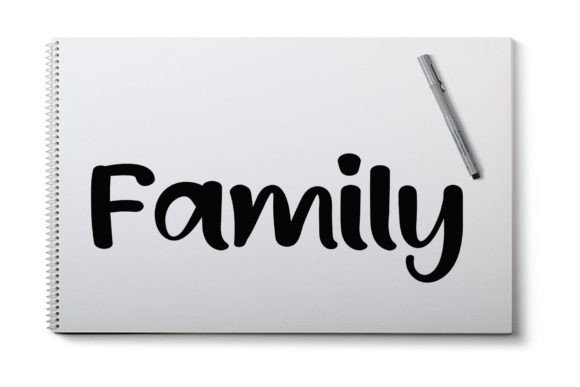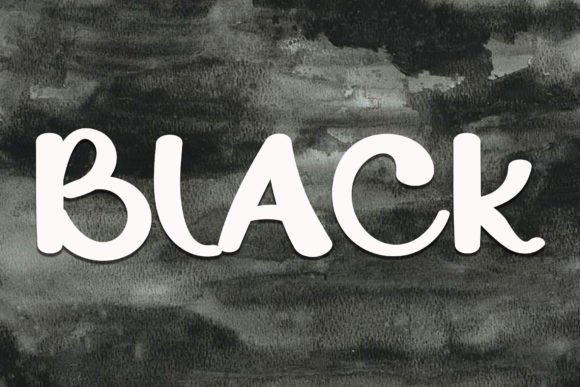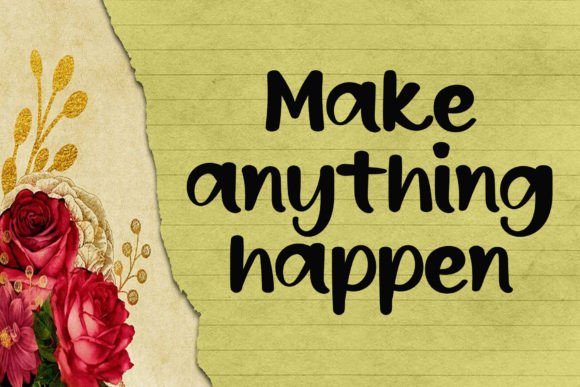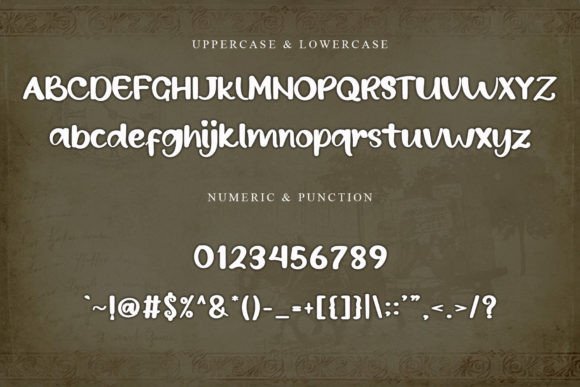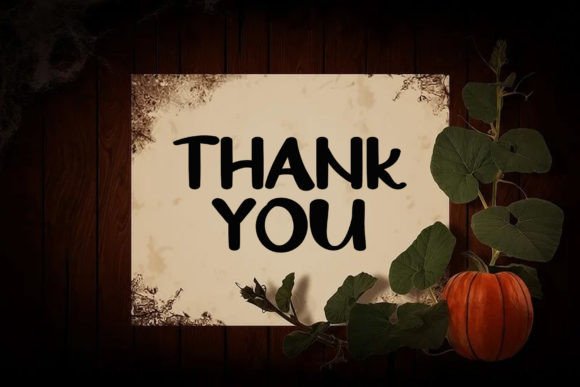
The Bunny Font: A Timeless, Handwritten Delight for Your Designs
The Bunny font is a neat and beautiful handwritten font described by an elegant touch, perfect for your favorite projects. Its incredibly distinct and timeless style makes it ideal for creating spectacular designs that will leave a lasting impression.
- ✨ Elegant and refined, perfect for projects that require a touch of sophistication
- 💫 Beautifully crafted with attention to detail, making it perfect for designs that require a personal touch
- 🎨 Versatile and can be used for a wide range of projects, from wedding invitations to branding and packaging
While the Bunny font is an excellent choice for many projects, there are a few things to keep in mind: 🤔
- ⚠️ Some characters may not work well in all contexts, so it’s essential to test the font thoroughly
- ⚠️ Limited availability of stylistic alternates, which may limit its use in certain design scenarios
The Designer Inspiration Behind Bunny
The Bunny font was designed with the intention of creating a beautiful, timeless script font that would evoke a sense of elegance and sophistication. The designer, inspired by classic calligraphy and handwriting, crafted the font with attention to detail and a passion for typography.